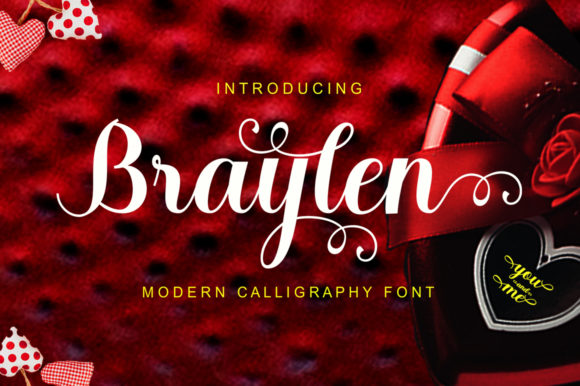
Unveil the Enchanting World of Braylen: An Exquisite Script Font Evoking Timeless Elegance
Prepare to be captivated by the charm and grace of Braylen, an extraordinary script font born from the creative mind of gatype. This remarkable masterpiece exudes an aura of sophistication that will leave you in awe. Experience the allure of Braylen, a font crafted to inspire, enchant, and elevate your designs to new heights.
Braylen was meticulously designed to capture the essence of elegance, with every curve and line flowing harmoniously together. Its varying baseline adds a touch of dynamism, creating a visual symphony that dances across the page. The smooth lines caress your eyes, inviting you into a world of pure artistry.
Imagine your wedding invitations adorned with Braylen's delicate touch, transforming them into treasured keepsakes that convey your heartfelt sentiments. Extend your gratitude with thank you cards penned in Braylen's graceful script, making each expression of appreciation a work of art. Share heartfelt quotes or craft heartwarming greeting cards using Braylen's enchanting letterforms, leaving a lasting impression on your loved ones.
Transform your creative projects with Braylen's luminous presence. Design logos that radiate professionalism and prestige, crafting a strong visual identity for your brand. Create business cards that command attention, leaving a lasting impression on potential clients and partners. Infuse your designs with Braylen's unique charm and watch your creations blossom into masterpieces.
Braylen's versatility extends far beyond the boundaries of traditional script fonts. Its stunning glyphs allow for endless customization, empowering you to explore your creativity without limits. Unleash your imagination and discover the myriad possibilities hidden within Braylen's intricate details.
Embrace the allure of Braylen today and embark on a creative journey like never before. Experience the magic of a font that will elevate your designs to new heights. Whether you're a seasoned designer or just starting out, Braylen is the perfect companion to ignite your creativity and leave a lasting legacy.